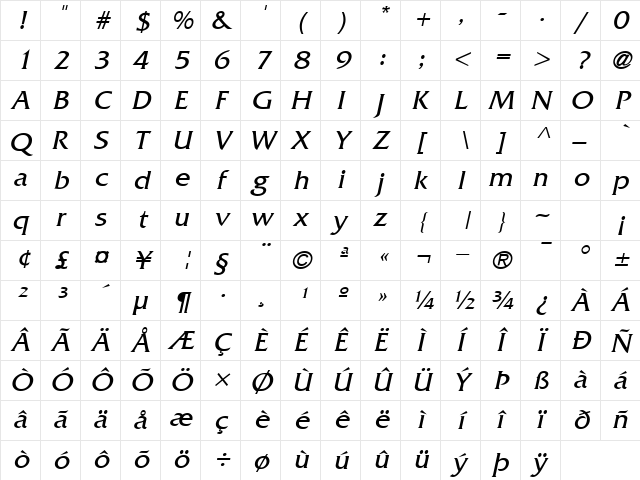
Alliance is a composed and adaptable typeface that performs quietly and consistently across a wide range of design contexts. The slanted form adds forward momentum and visual energy.
Pro Tip: Use Alliance for emphasis, pull quotes, and subheadings where its slanted energy can add rhythm to the layout.